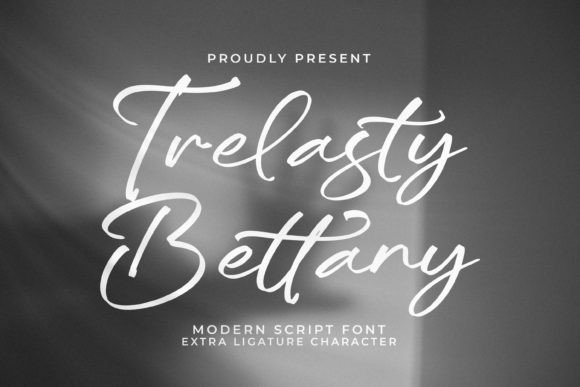
In a world teeming with digital designs, the quest for a font that radiates elegance and sophistication is akin to a treasure hunt. Amidst this vast sea of typefaces, Trelasty Bettany emerges as a beacon of style, a font that transcends the ordinary and captivates the hearts of discerning designers. Its graceful curves, reminiscent of a ballet dancer's poise, lend an air of refinement to every project it graces. Crafted by the skilled hands of IntegrityPestudio, this script font embodies the essence of modern elegance, making it an ideal choice for fashion brands seeking to elevate their aesthetic.
Step into the realm of fashion and let Trelasty Bettany weave its magic. As the cornerstone of your branding efforts, it will bestow upon your designs a timeless allure that resonates with your target audience. This font possesses an innate ability to transform ordinary words into captivating expressions, drawing the eyes of potential customers and leaving an indelible mark on their minds. Its fluid strokes evoke a sense of fluidity and movement, capturing the dynamic essence of the fashion industry. Whether you're crafting captivating logos, alluring social media posts, or eye-catching marketing materials, Trelasty Bettany will elevate your brand to new heights of sophistication.
Beyond its undeniable aesthetic appeal, Trelasty Bettany offers a wealth of practical advantages. Its versatility extends across a wide spectrum of design applications, making it an indispensable tool in the creative arsenal of any designer. Effortlessly adapt it to wedding invitations, branding projects, and any endeavor that demands a refined and luxurious touch. The font's adaptability ensures seamless integration into diverse design styles, allowing you to effortlessly convey your unique brand identity.
With Trelasty Bettany as your chosen font, you unlock the gateway to a world of creative possibilities. Its presence will elevate your designs, captivating audiences with its timeless beauty and enchanting charm. Prepare to witness your brand flourish as it takes center stage, radiating an aura of elegance and sophistication that sets it apart from the mundane. Embrace Trelasty Bettany today and embark on a creative journey where your designs will leave a lasting impression on the hearts and minds of those who behold them.